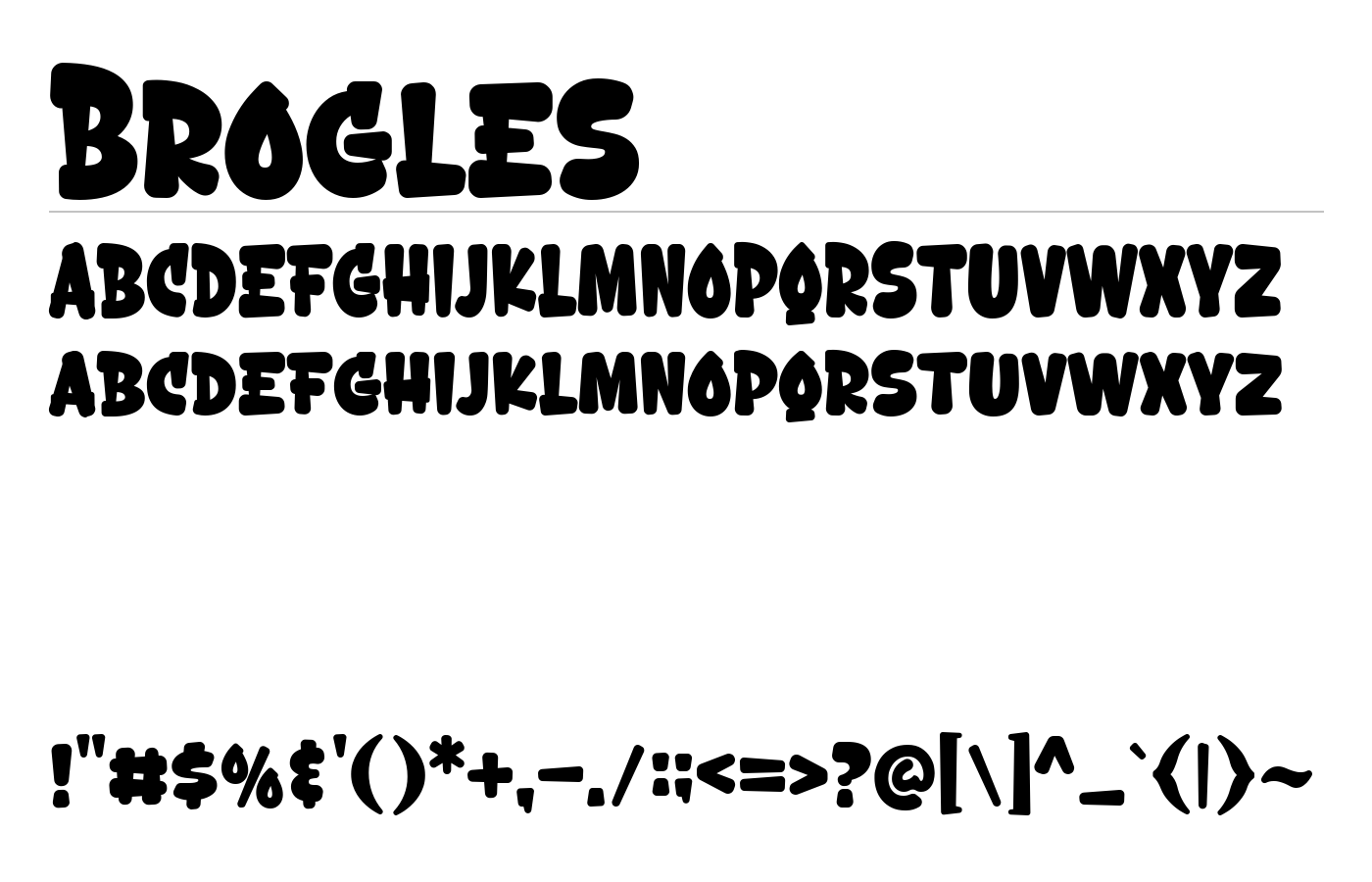
Brogles is a bold, playful sans serif font with thick, rounded letterforms that give it a friendly and approachable feel. Its chunky shapes and uneven strokes make it perfect for fun, informal designs like children's books, posters, or casual branding where a relaxed, energetic mood is desired. This font works well for headlines and display text, adding a unique charm that grabs attention with its cheerful personality.
Brogles Font
About Brogles Font
| Font family | Brogles Font |